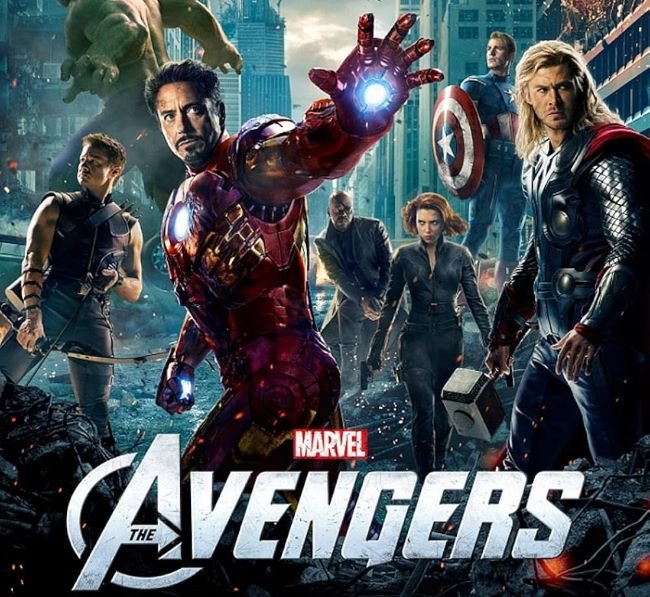
The Avengers font was built for scale — bold, geometric, and slightly condensed, it communicates the same sense of assembled power as the team it represents. Marvel never officially released the typeface, but the fan-made Avengeance Heroic Avenger has become the definitive free tribute, faithfully replicating the cinematic weight and angular confidence of the original logo with impressive attention to detail.
Its strong geometry and zero tolerance for weakness make it an obvious choice for superhero-themed poster designs, gaming graphics, fan merchandise mockups, and any creative project that needs to feel like it was designed for the biggest screen in the world. In a franchise built entirely on the idea that individual strength becomes something greater in unity, the typography had to match — and it absolutely does.